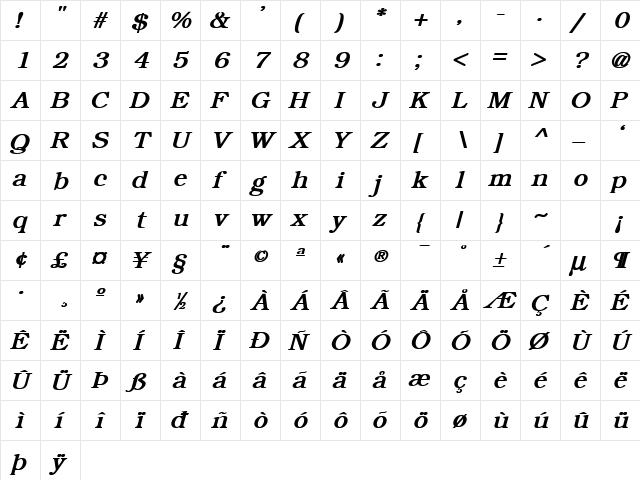
Oakland-BoldIta Normal
Design Context for Oakland-BoldIta Typeface
Oakland-BoldIta is a composed and adaptable typeface that performs quietly and consistently across a wide range of design contexts. Its bold stroke weight gives it real presence on the page.